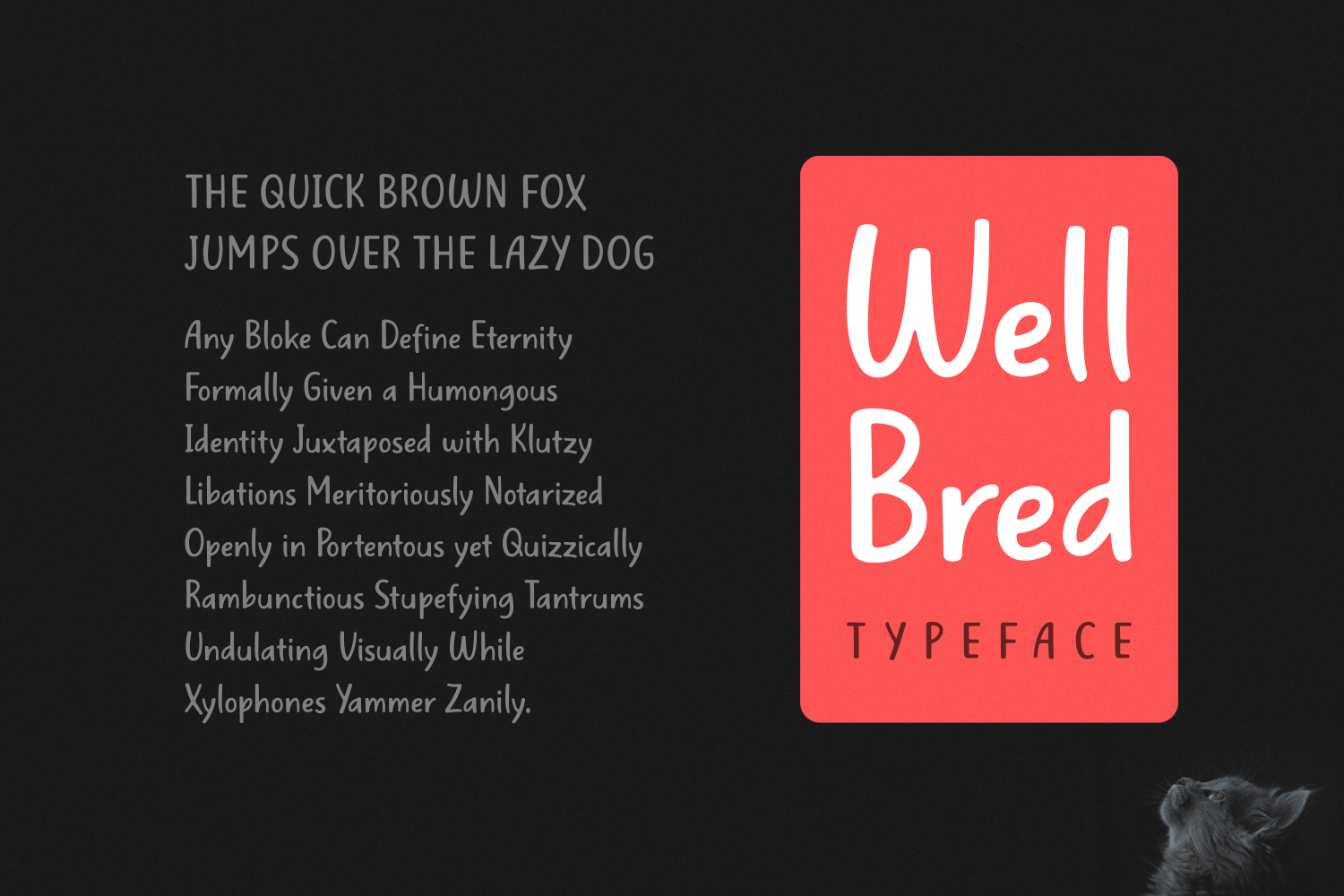
Well Bred Font
About Well Bred Font
Well Bred is a gorgeous, simply made font that will add an eclectic touch to your work! This sans serif, handwritten font looks great in a wide range of designs.